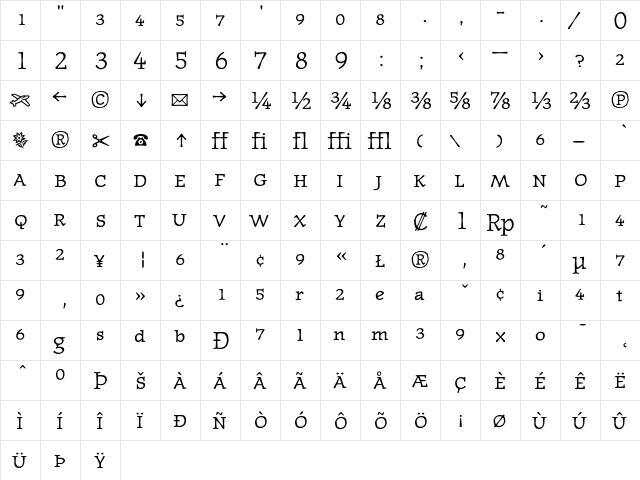
JournalTextFractions Regular Font Preview
JournalTextFractions Regular
Design Context for JournalTextFractions Typeface
JournalTextFractions offers clean, dependable letterforms without strong stylistic allegiance, making it a practical choice for designers who need flexibility.
Pro Tip: Use JournalTextFractions in both headline and body roles to test its range before committing to a single application.